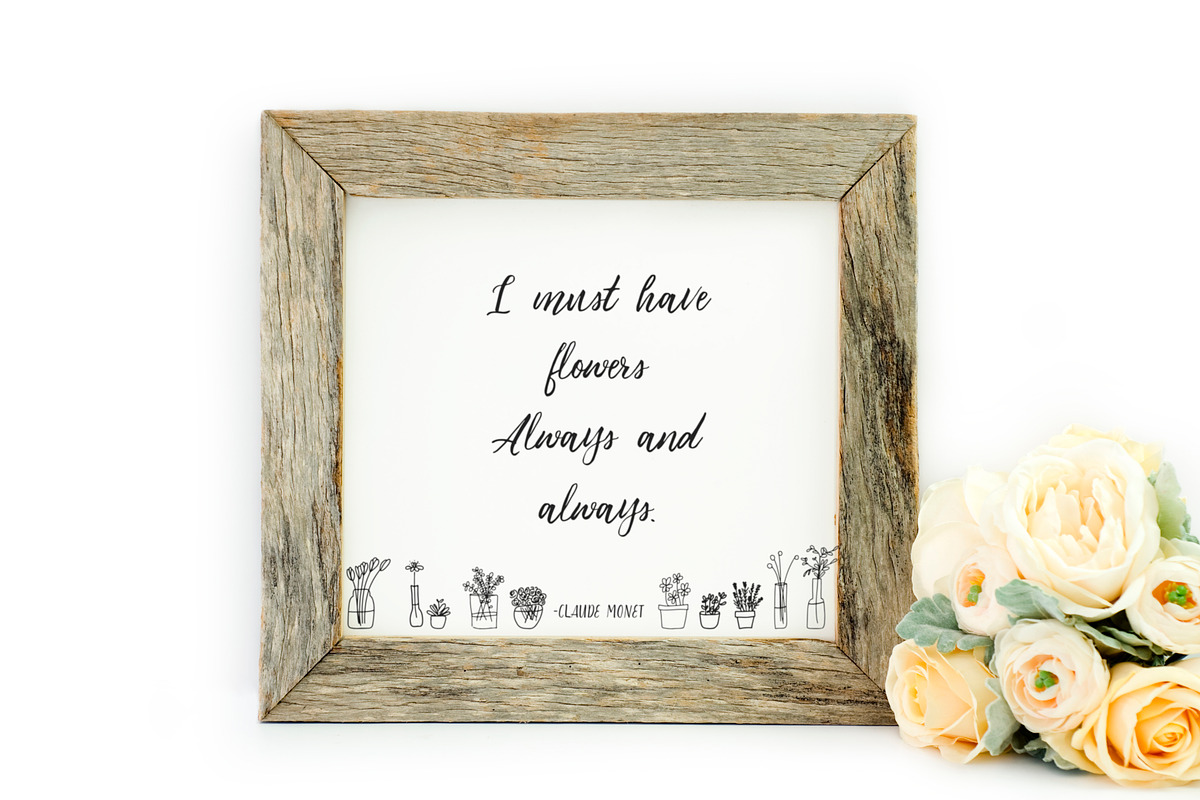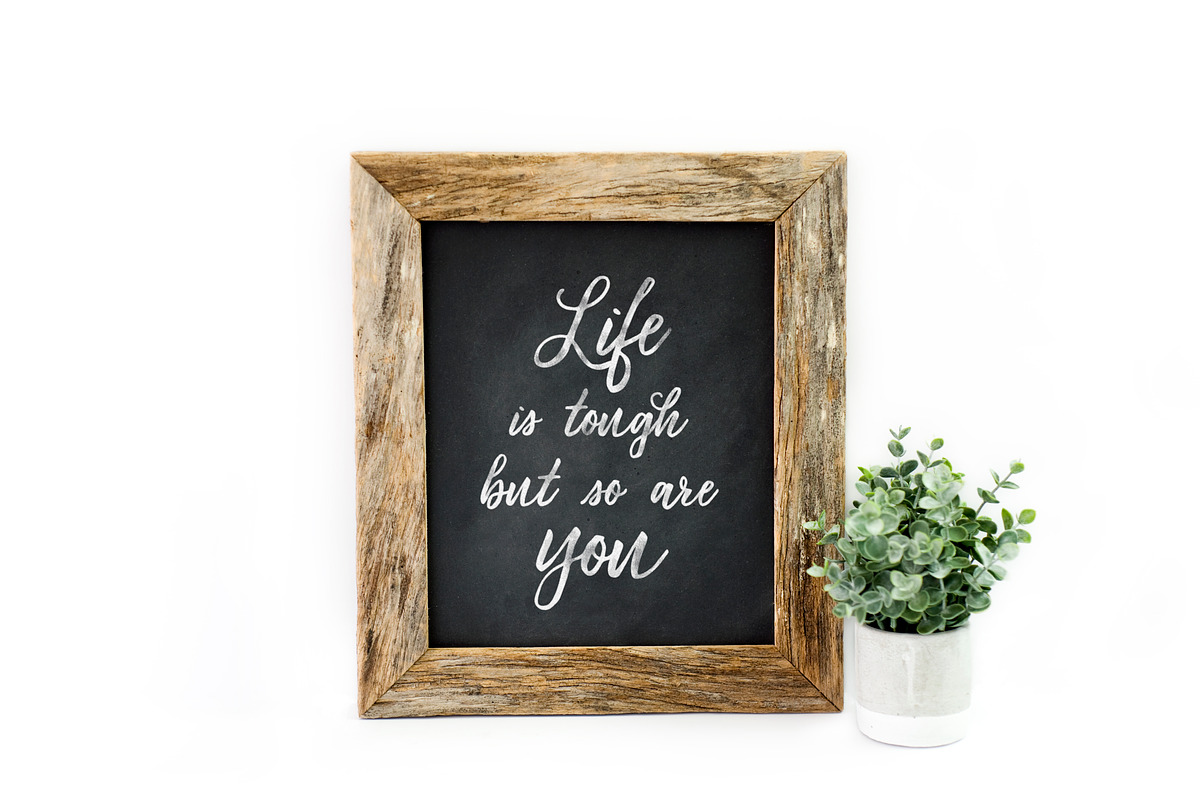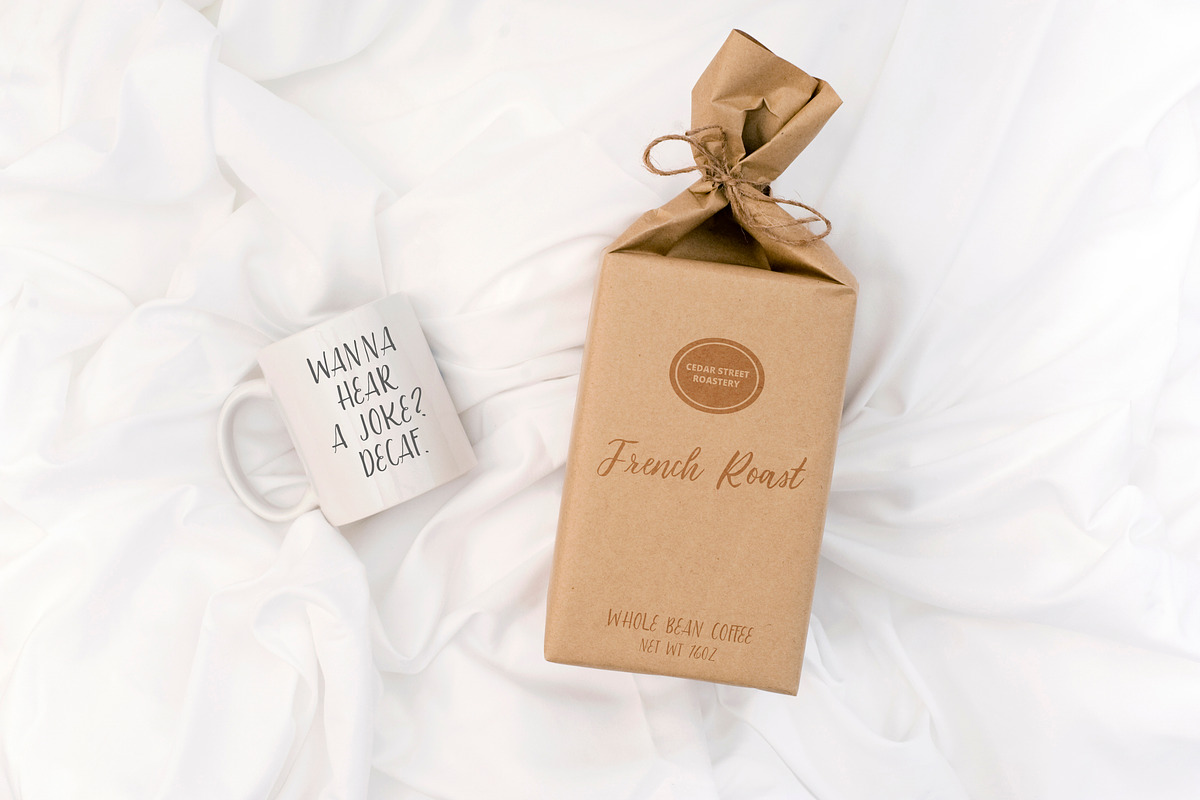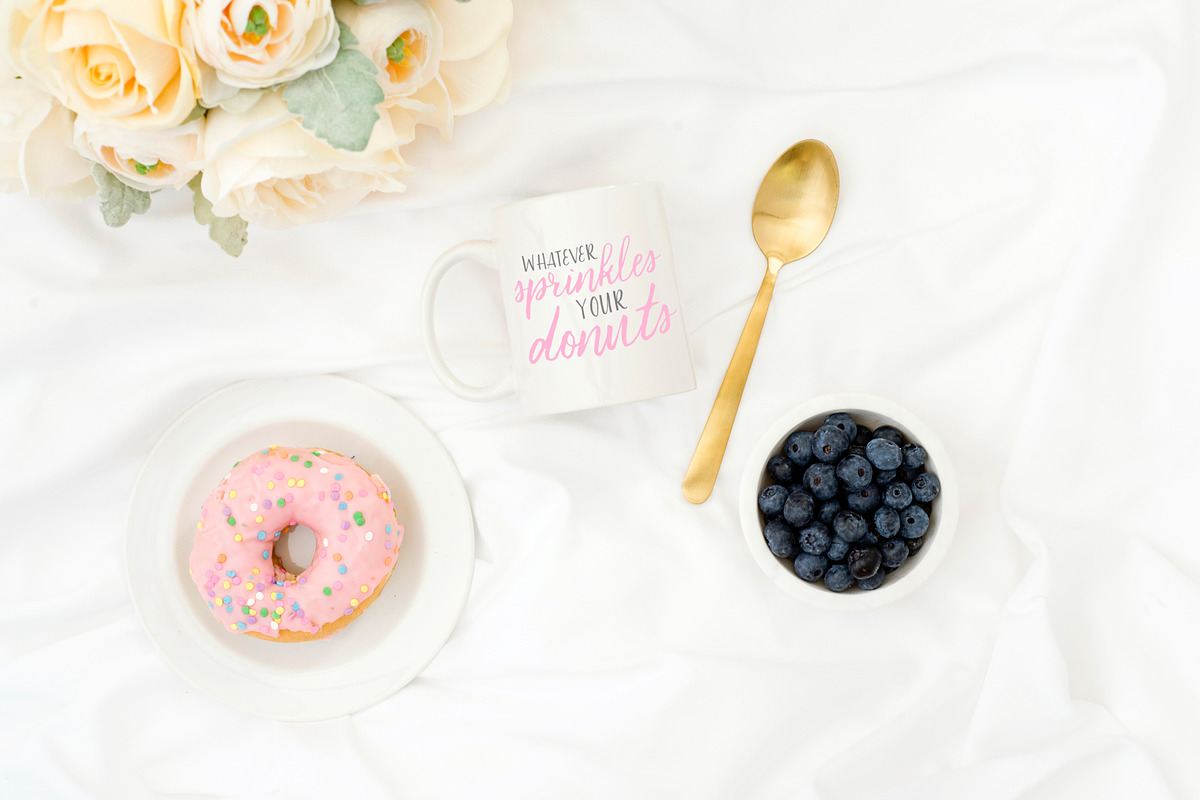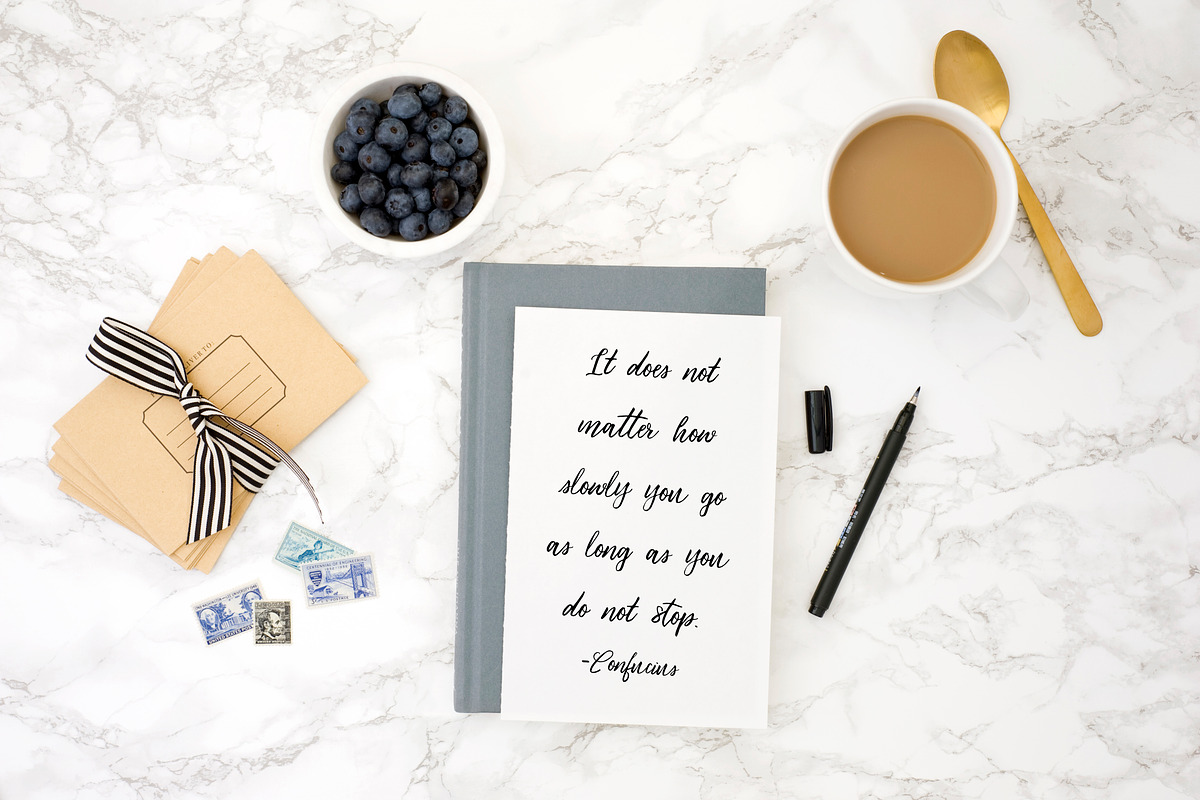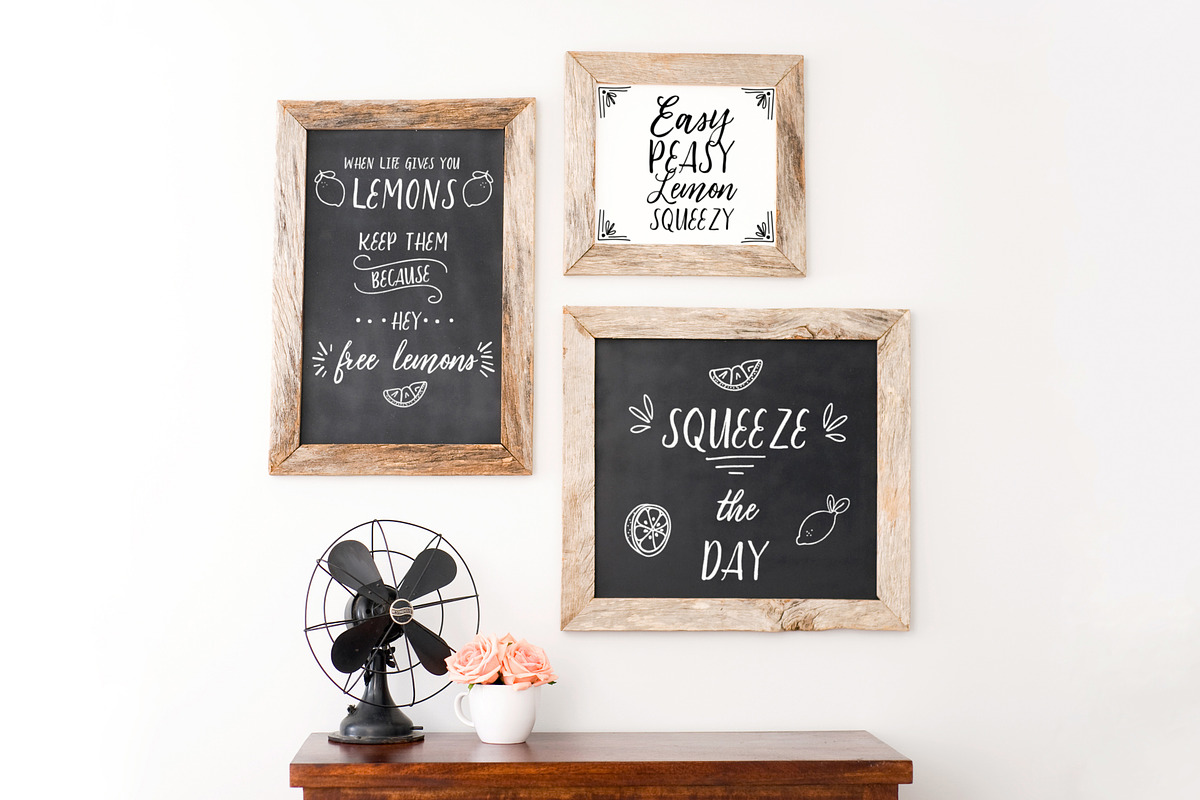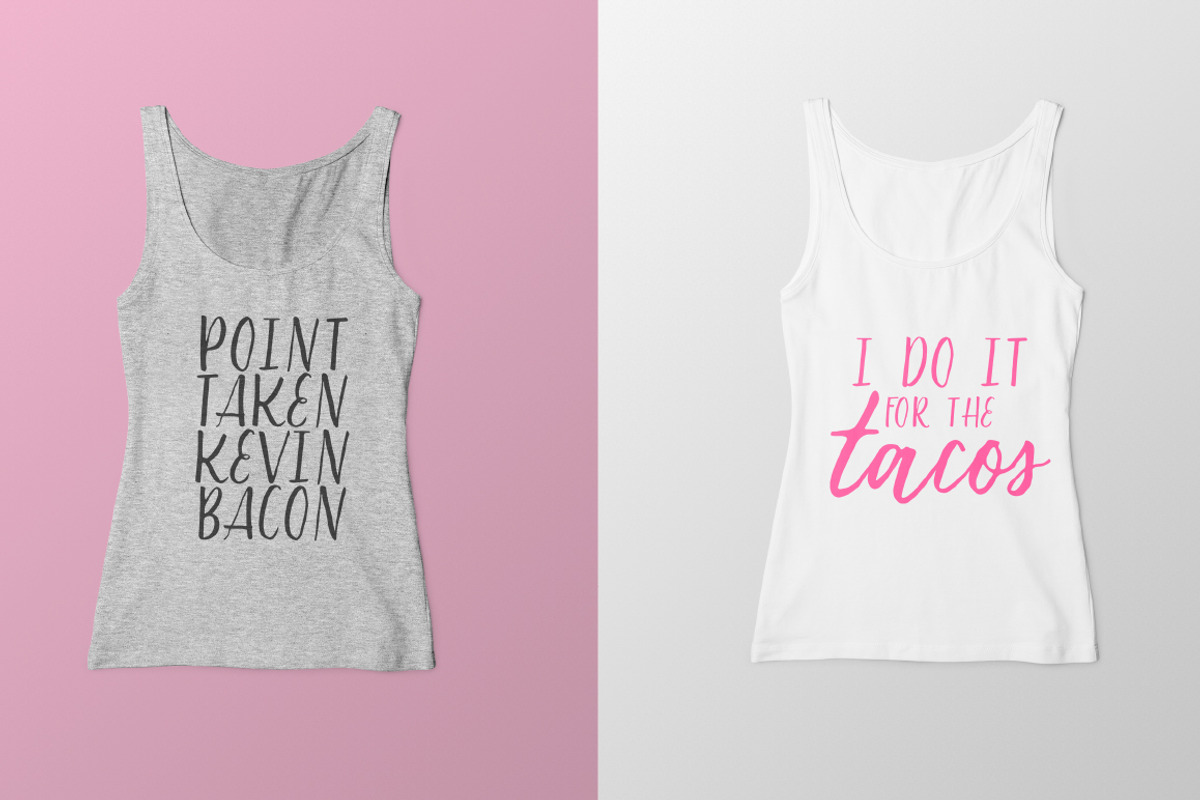
Lemon Balm Font Duo + Extras!
Liven up your projects with the cheerful font duo Lemon Balm + 70 Line Art Illustrations!
This duo takes the guesswork out of font pairing. They were made for each other!
OpenType features: lots of standard ligatures, discretionary ligatures, and contextual alternates make your type look like authentic brush lettering
70 hand-drawn doodles to embellish any project
- Lemon Balm Script (OTF & TTF)
- Modern brush calligraphy script font
- Upper & lower case
- Lemon Balm Sans (OTF & TTF)
- Brushy sans serif font
- Upper & lower case
- Bonus Lemon Balm Symbols Font (TTF)
- 70 typeable line art doodles, swashes, and more!